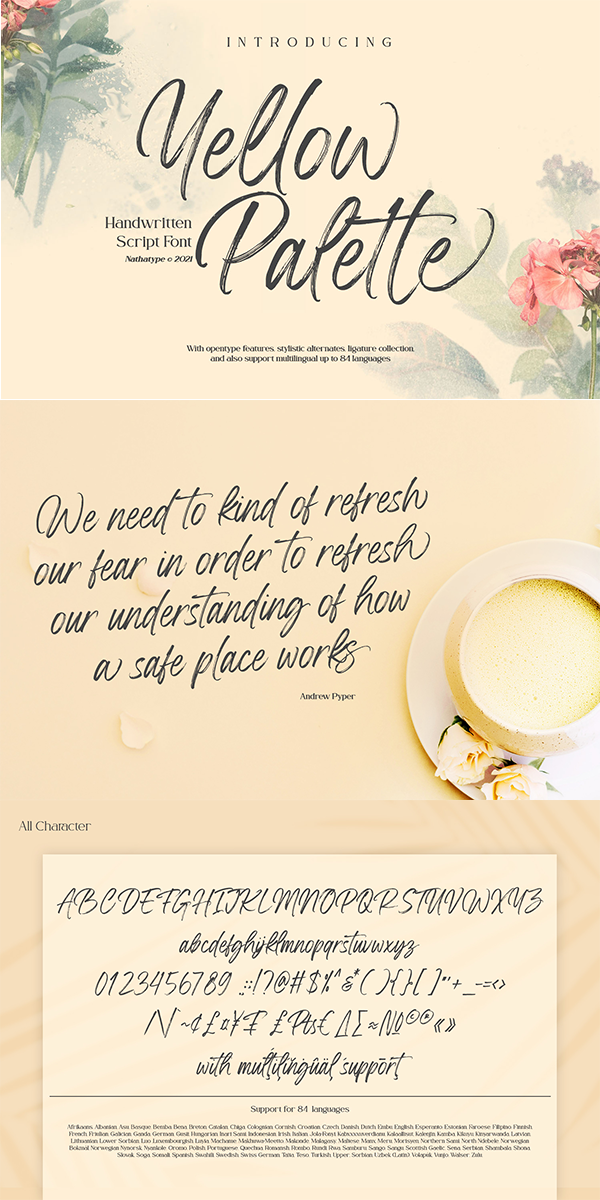
About Yellow Palette
Yellow Palette is a gorgeous font designed with a modern vibe. This handwritten font is perfect for anything adventurous and direct. Every stroke and curve was created to entice happiness and elegance. This is a real head-turner for your presentations, designs, brandings, quotes, invitations, website illustrations, and so on.
Our font always includes Multilingual Support to make your branding reach a global audience. Inspire your audience, clients, or guests with this beautiful, statement font. See the previews above to get to know how to use them. Happy Designing!